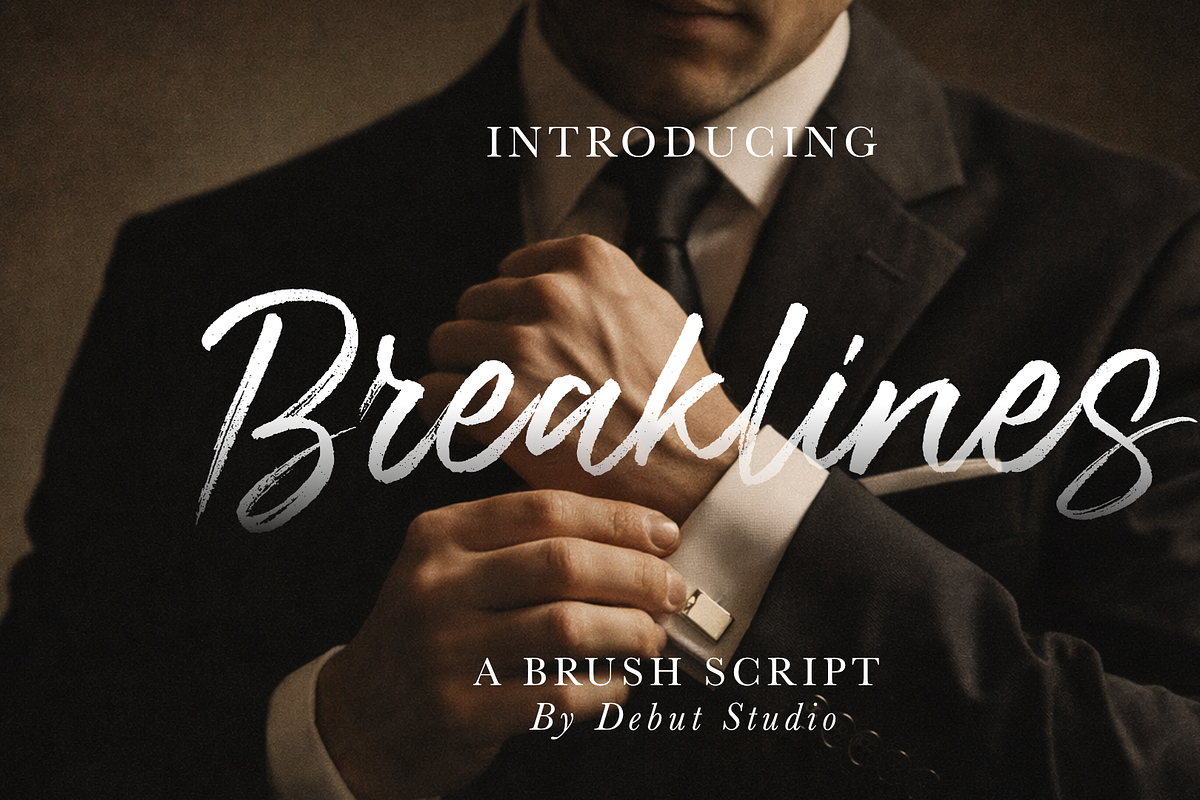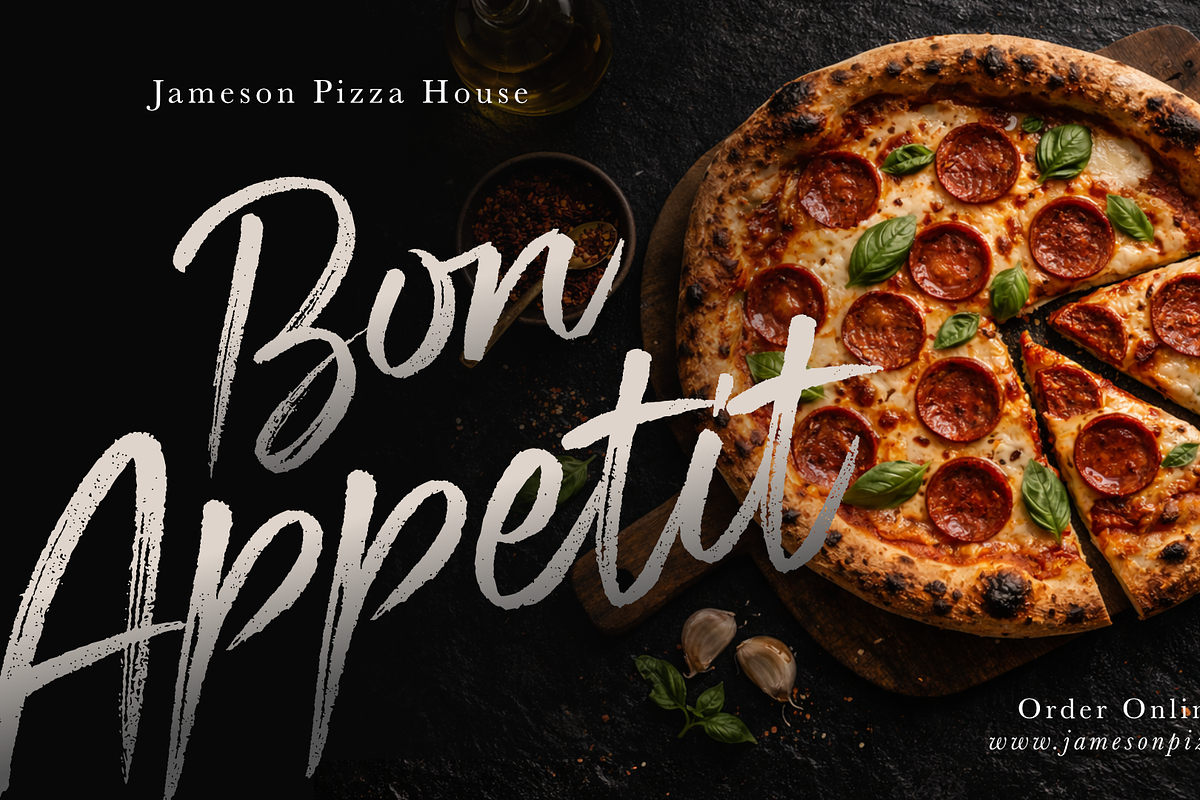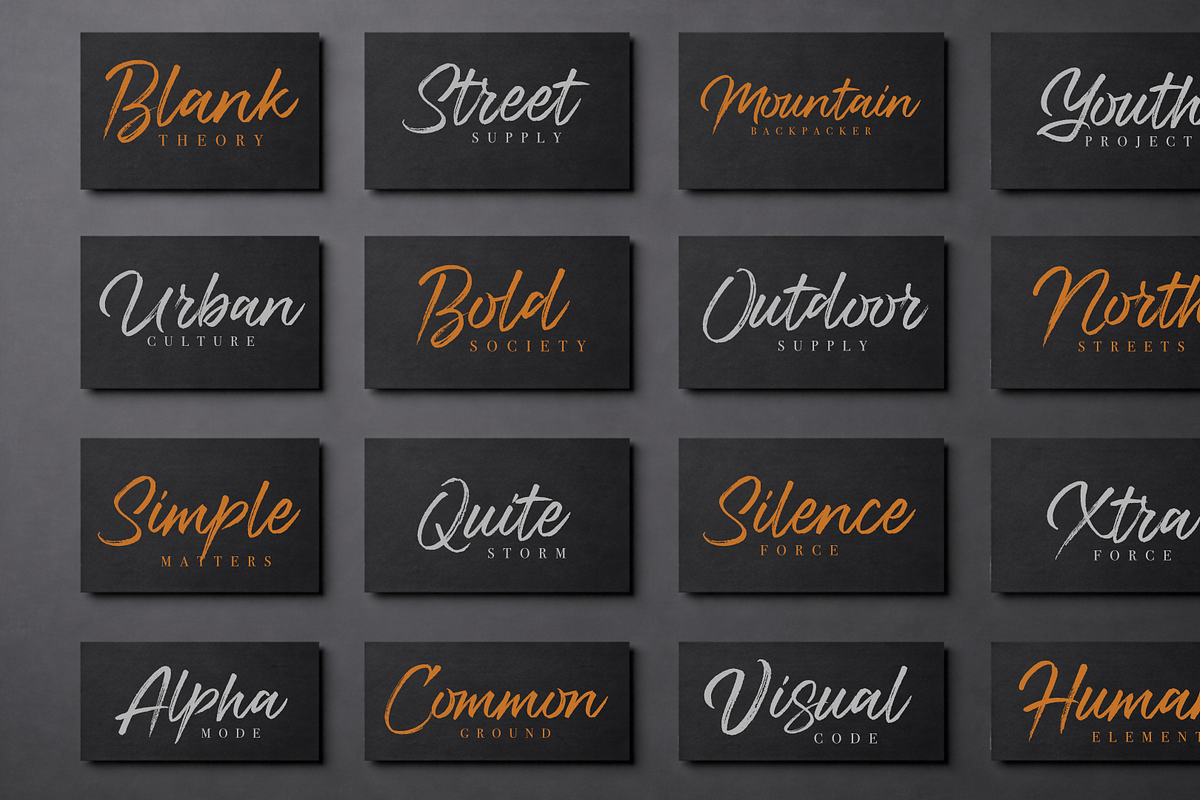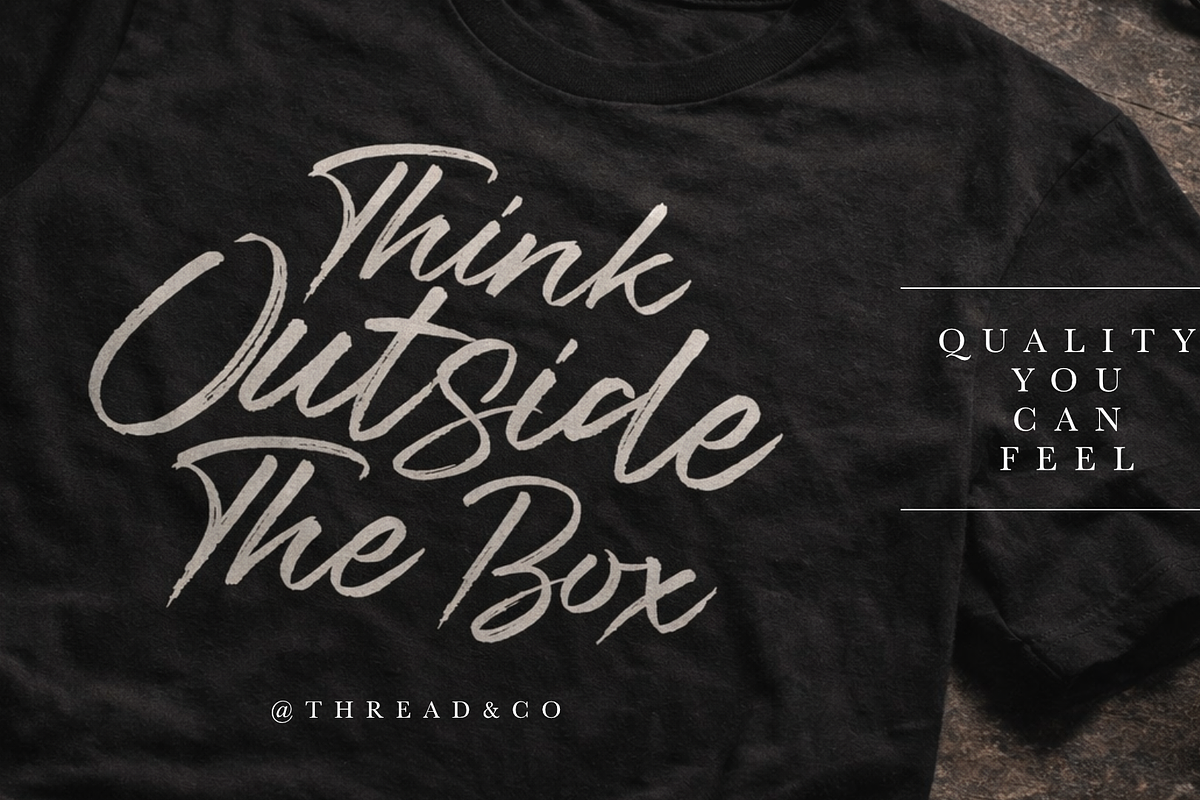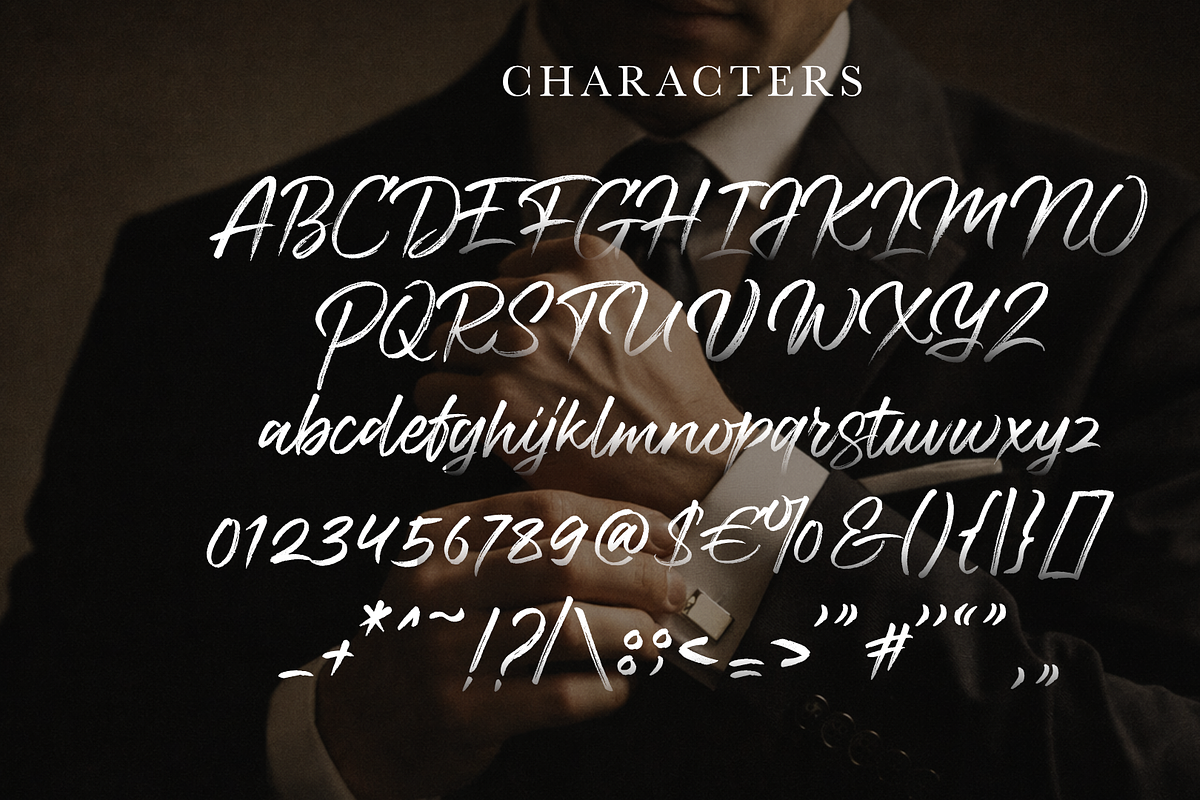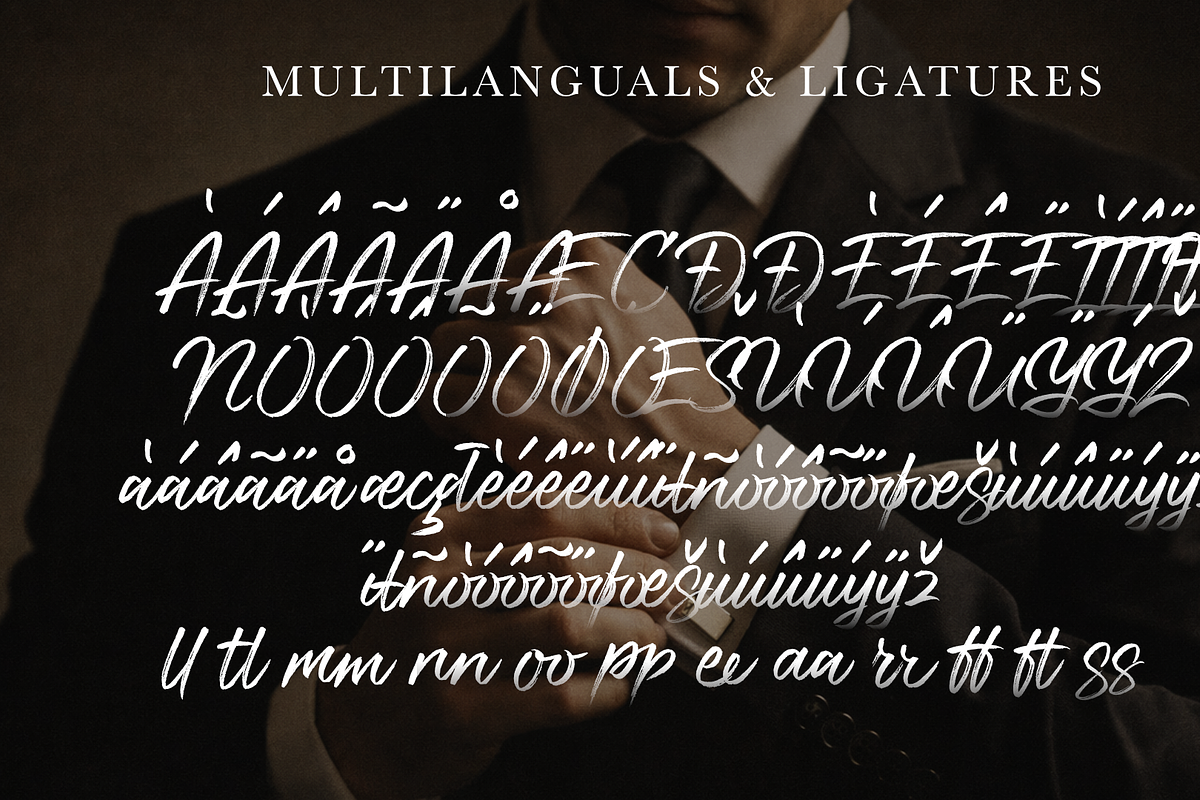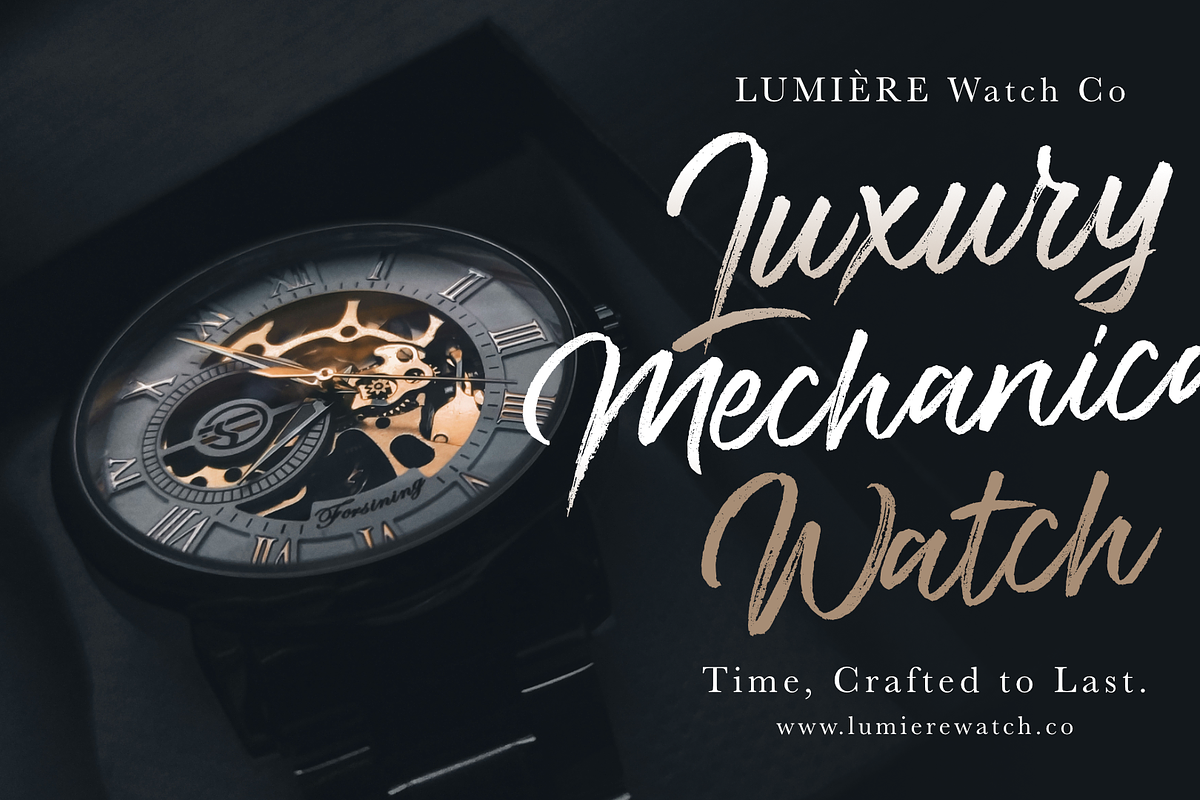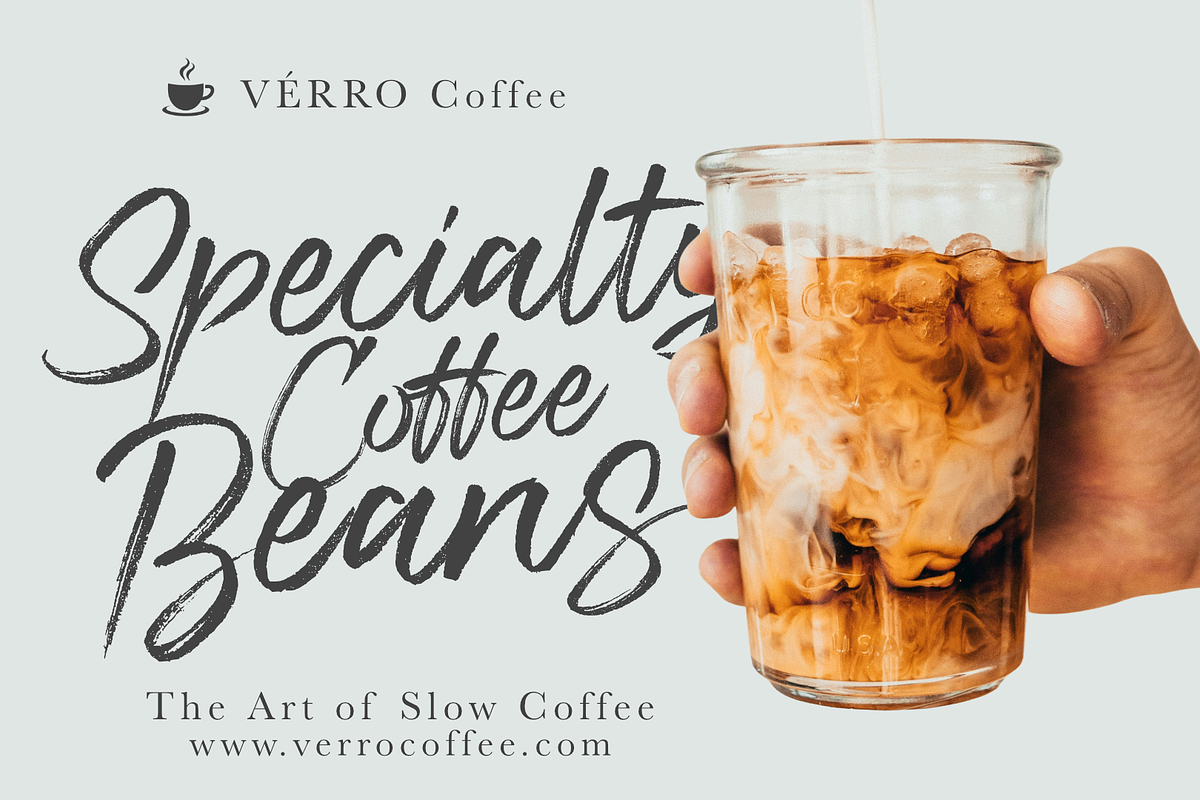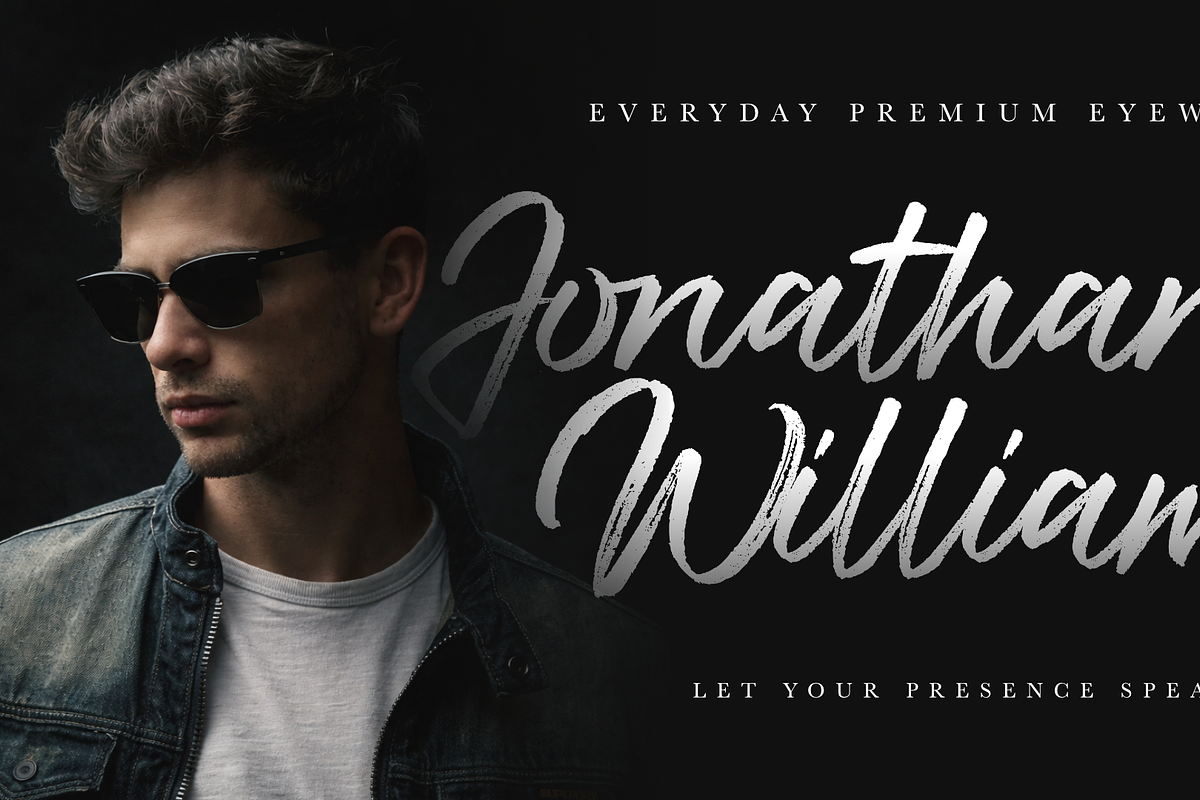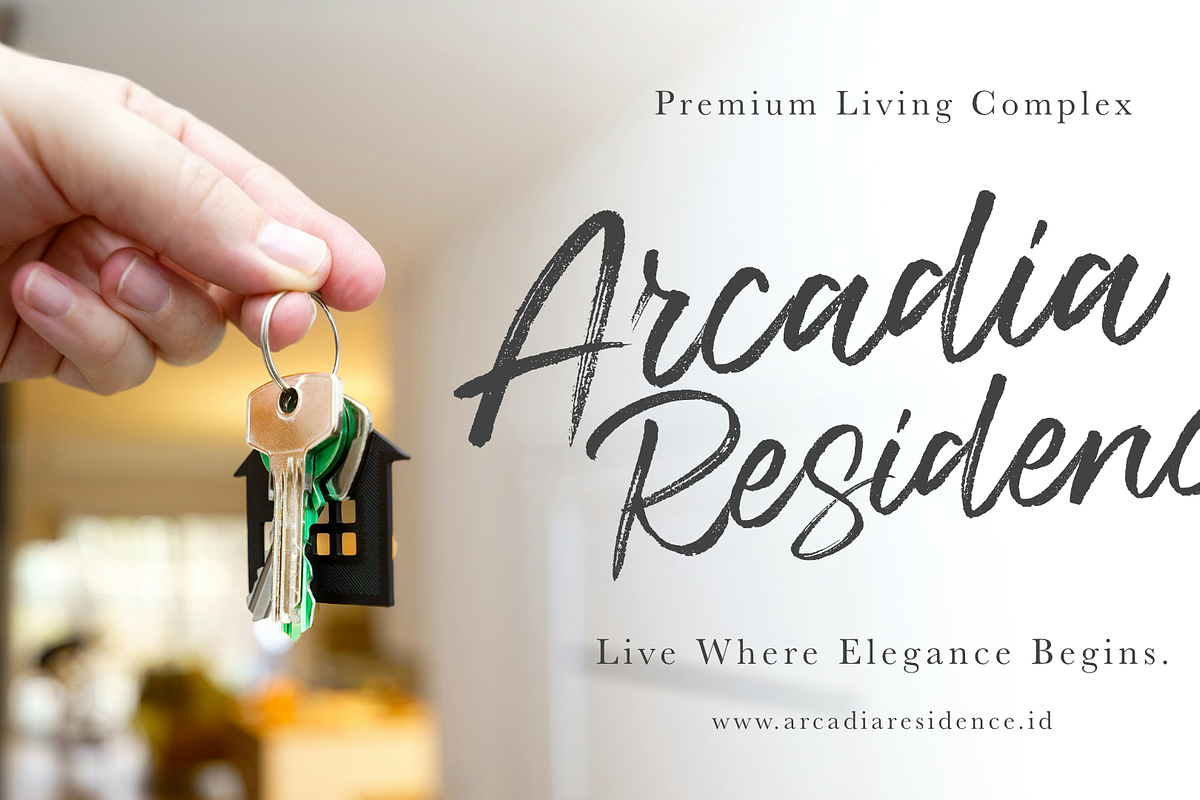
Breaklines – Authentic Brush Script
Breaklines is an authentic brush script font inspired by confident handwriting, raw strokes, and timeless masculinity.
Designed to feel natural, bold, and expressive, Breaklines brings a handcrafted brush texture with smooth letter flow and strong character. This font is perfect for designers who want their typography to speak with presence — whether for branding, apparel, editorial headlines, or lifestyle visuals.
Breaklines works beautifully for:
- Logo & brand identity
- Apparel & merchandise design
- Posters & editorial headlines
- Social media quotes & promotions
- Packaging & product labels
With its natural brush texture and confident strokes, Breaklines helps your design stand out without trying too hard — bold, personal, and timeless.
Let your presence speak through letters. Breaklines — a brush script built for the long way.